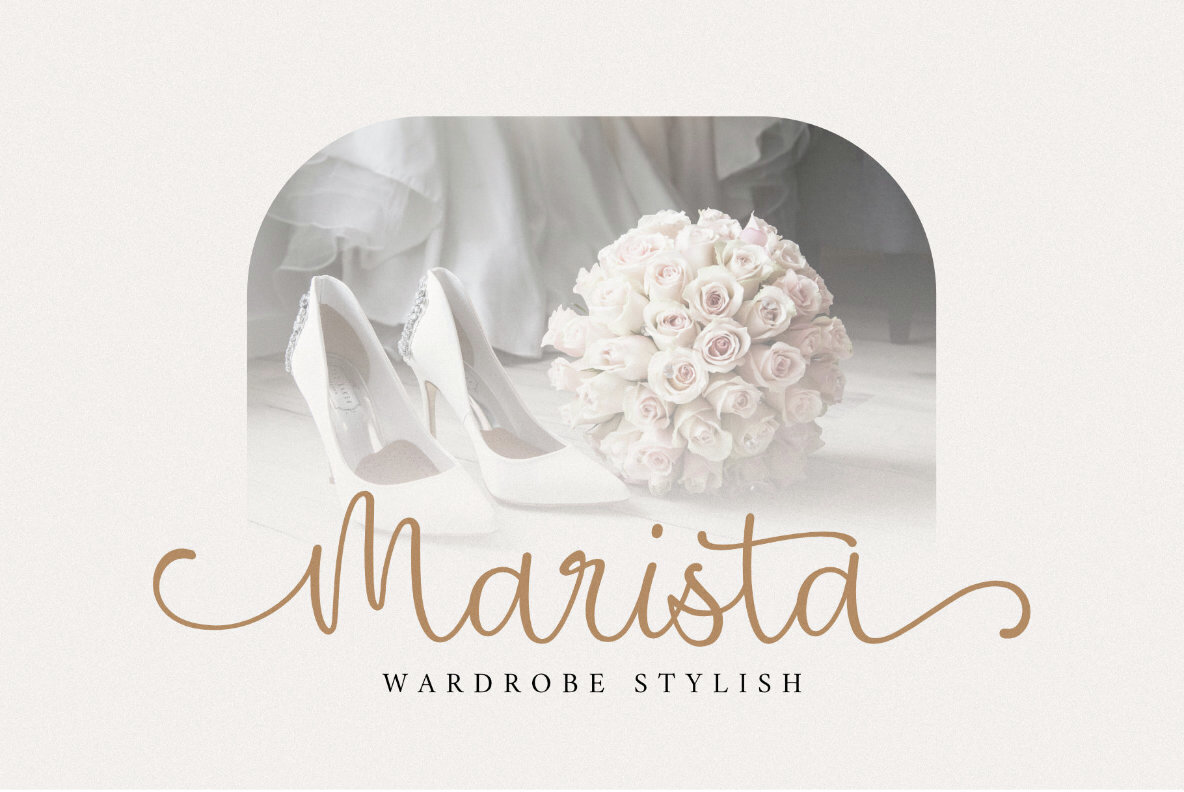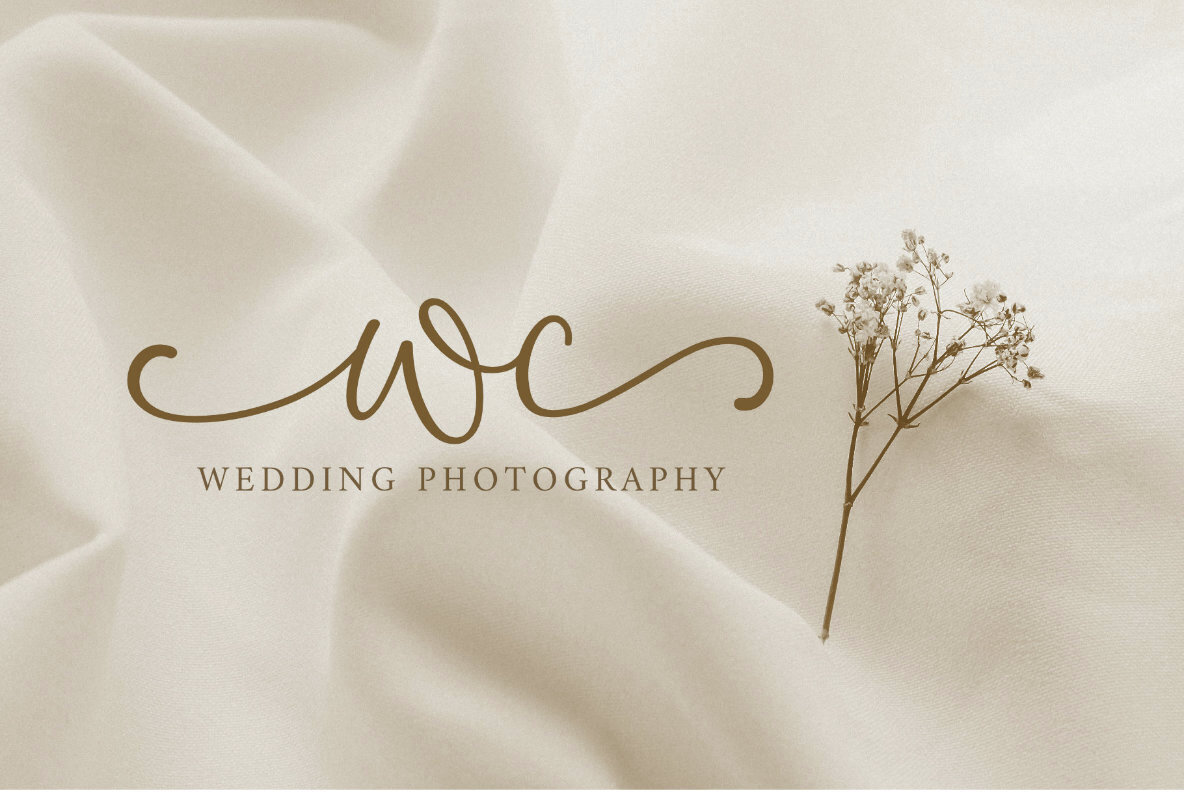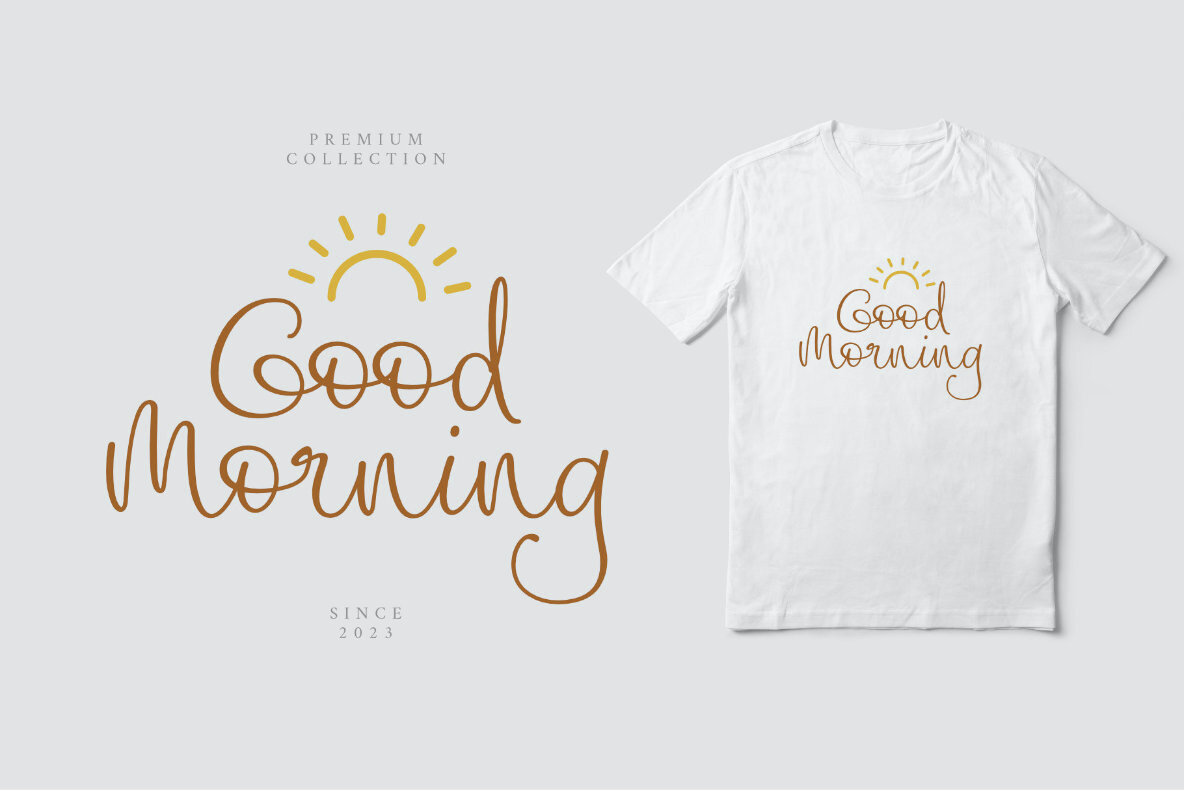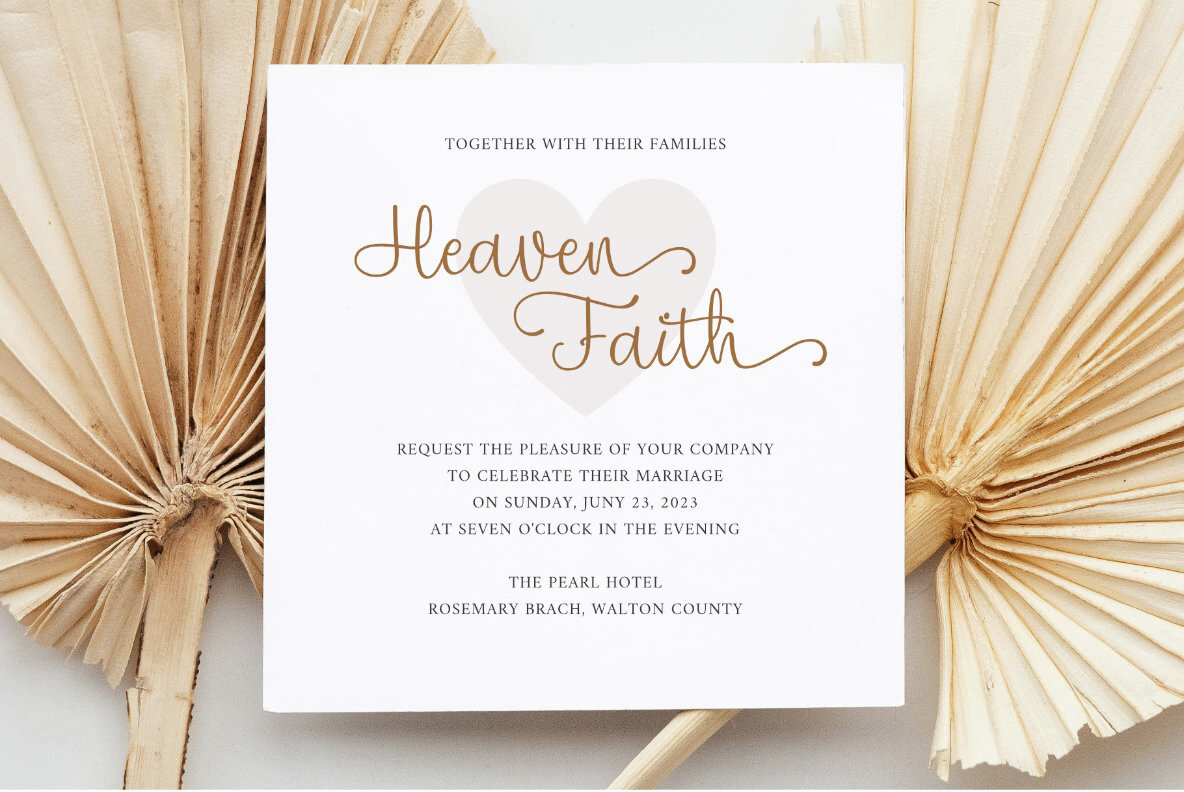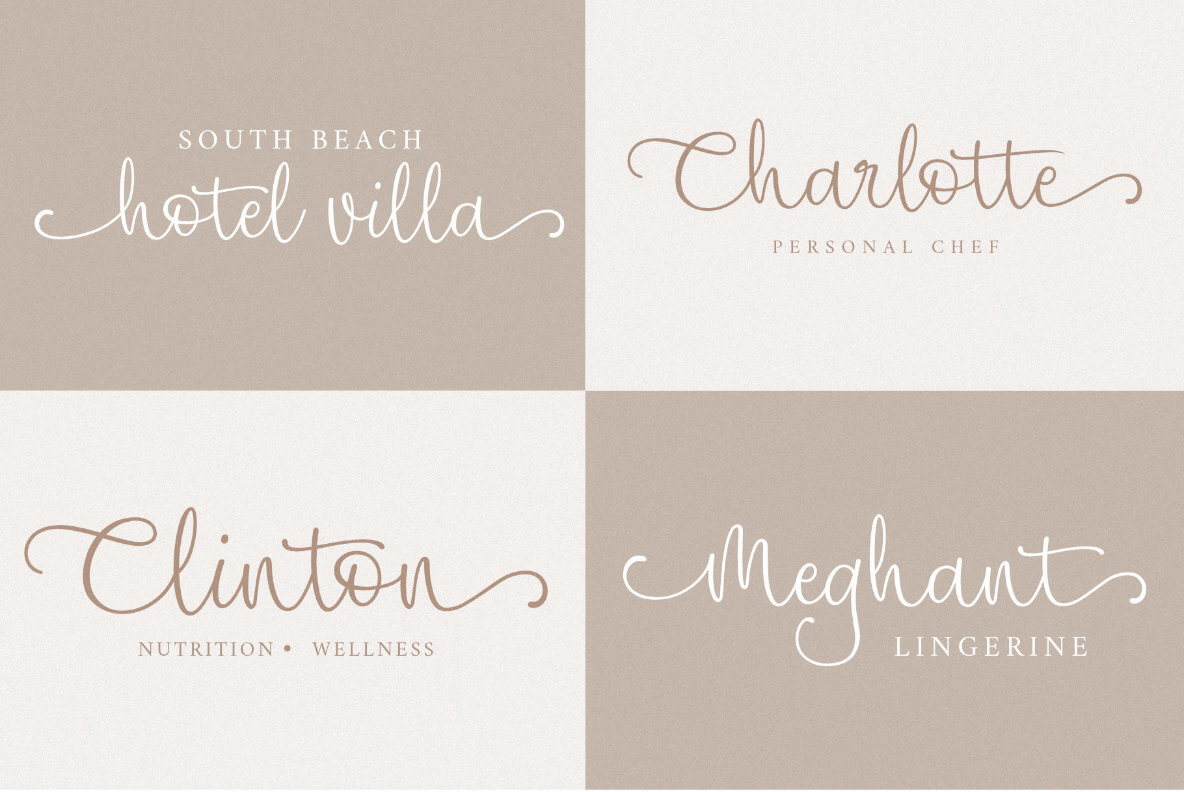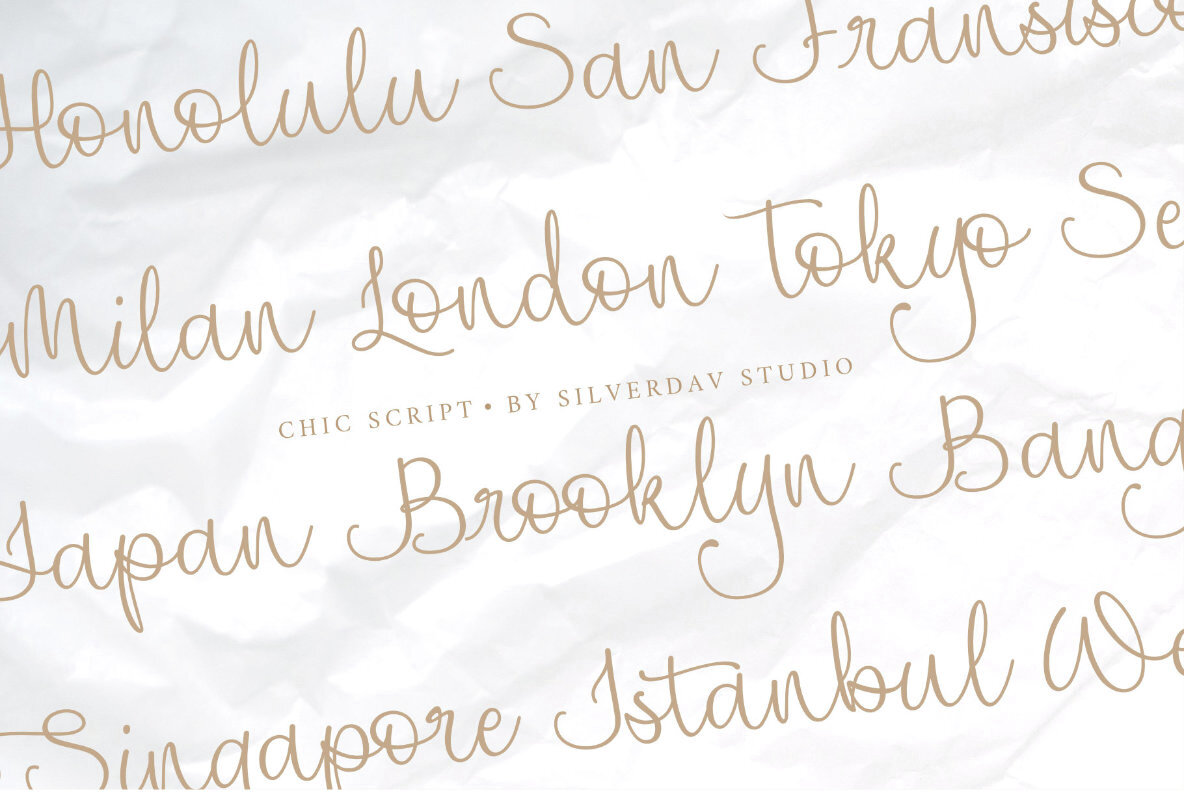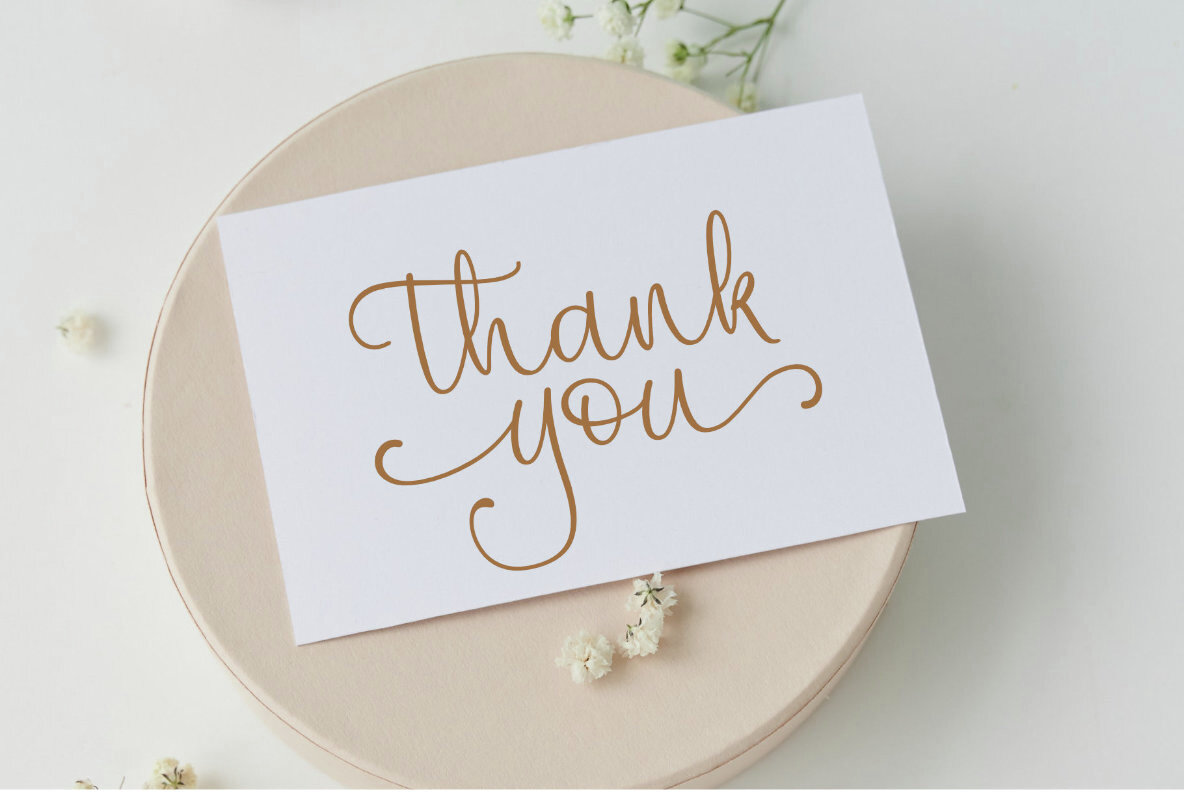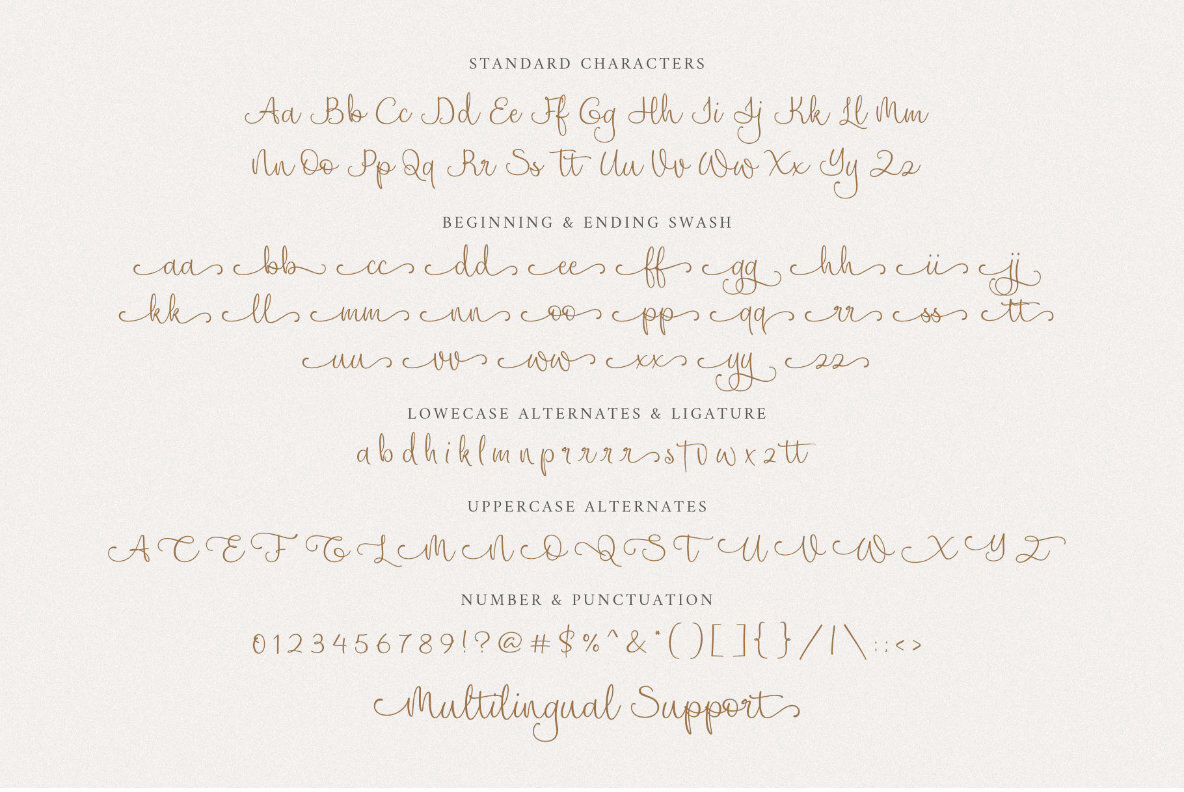
Michael Sheikh Font
Michael Sheikh Regular
This script font exudes a handwriting-inspired, calligraphic feel that appeals to designs requiring a touch of elegance and personalization. Its fluidity and dynamic strokes suggest a sophisticated and feminine touch, making it suitable for invitations, branding, and editorial uses. The organic, flowing nature of the letters provides a balance between casual charm and designed precision.